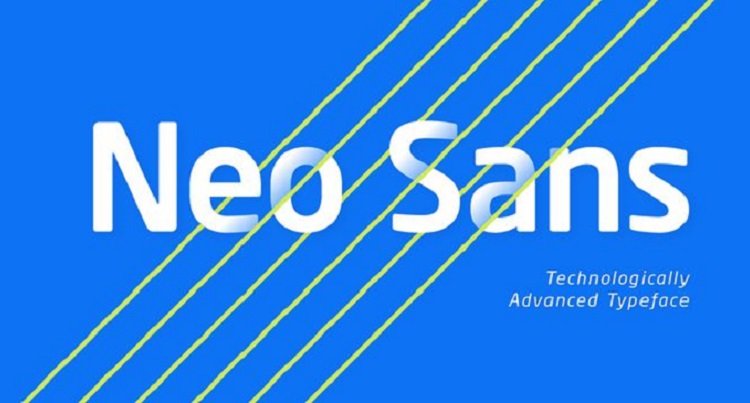
Designer Sebastian Lester describes his Neo Sans variety assortment as “legible without being neutral, nuanced without the need of staying fussy, and expressive with no getting distracting.”
That includes rounded, sq. sans letterforms, the Neo Sans spouse and children is offered in 6 weights, ranging from light to extremely, with companion italics.
Its forward-looking persona causes it to be a great option for branding jobs, likewise as for editorial or publication design.
Pair the Neo Sans assortment which has a serif design for fascinating typographic distinction; for more immediate continuity, look at the typeface’s sister design-the Neo Tech family members also from Lester, accessible in 6 weights with matching italics.